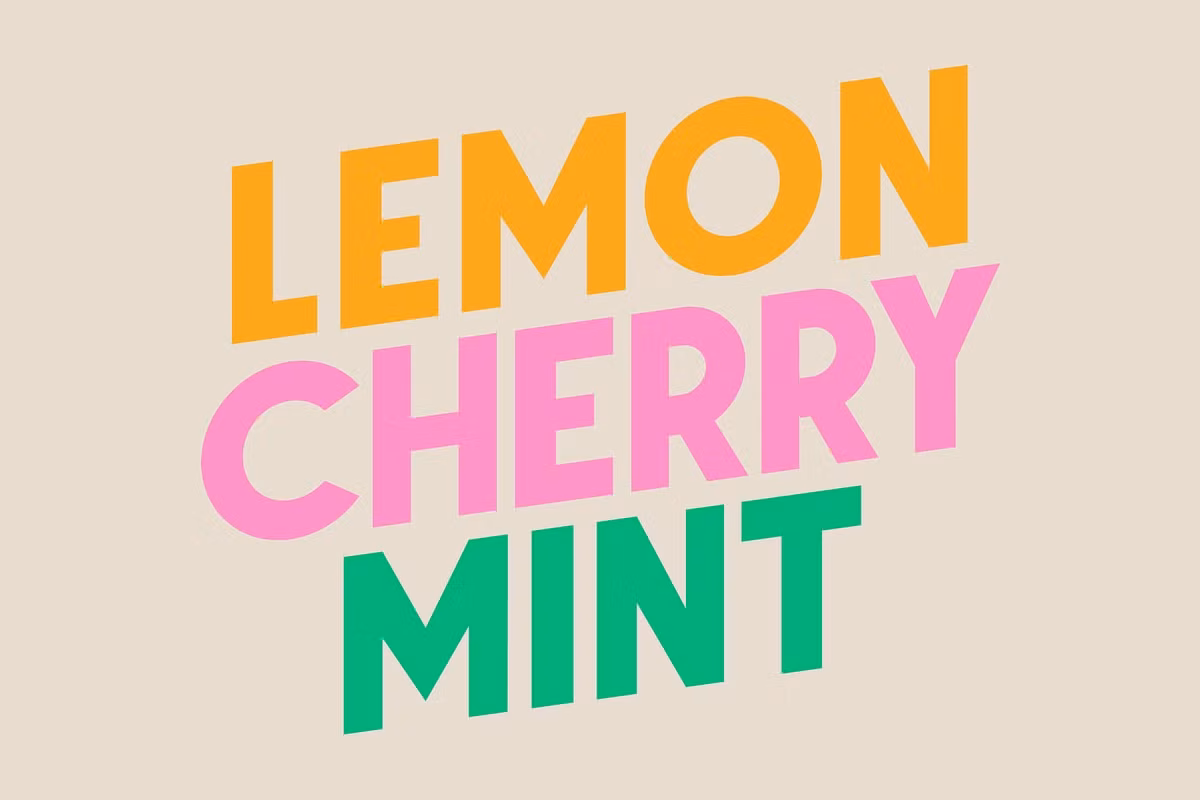
Lemon Cherry Mint Font Duo Free Download
Lemon Cherry Mint Font Duo Free Download is a playful and stylish font combination that brings together a handwritten script and a clean sans-serif. Perfect for branding, packaging, social media graphics, and creative invitations, this font duo adds a fresh and modern vibe to any design project.
With its unique blend of charm and clarity, Lemon Cherry Mint Font Duo Free Download gives you the flexibility to mix and match styles while keeping your design cohesive and eye-catching. Whether you’re aiming for a casual, chic, or bold look, this duo makes it easy to stand out. Try it today to see how it can elevate your visual storytelling and bring personality to your work before investing in the full license.